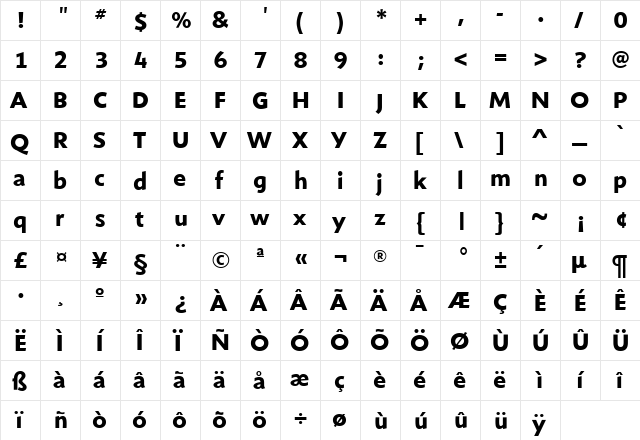
ShinnBold Regular Font Preview
ShinnBold Regular
ShinnBold Regular Font Details
| Foundry | Red Rooster Typefounders |
Design Context for ShinnBold Typeface
ShinnBold takes a measured approach to typography — its balanced proportions and neutral character make it a reliable workhorse for both digital and print work. Its bold stroke weight gives it real presence on the page.